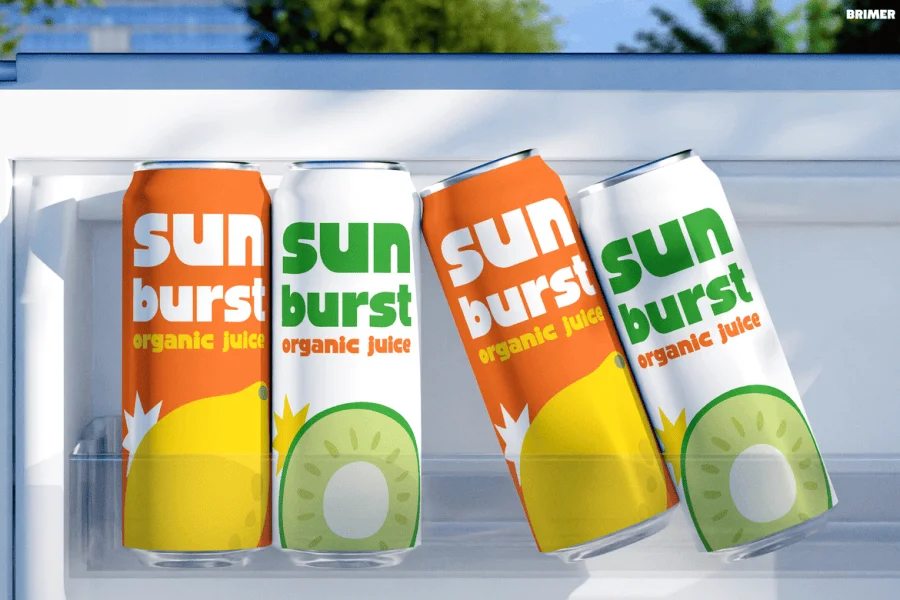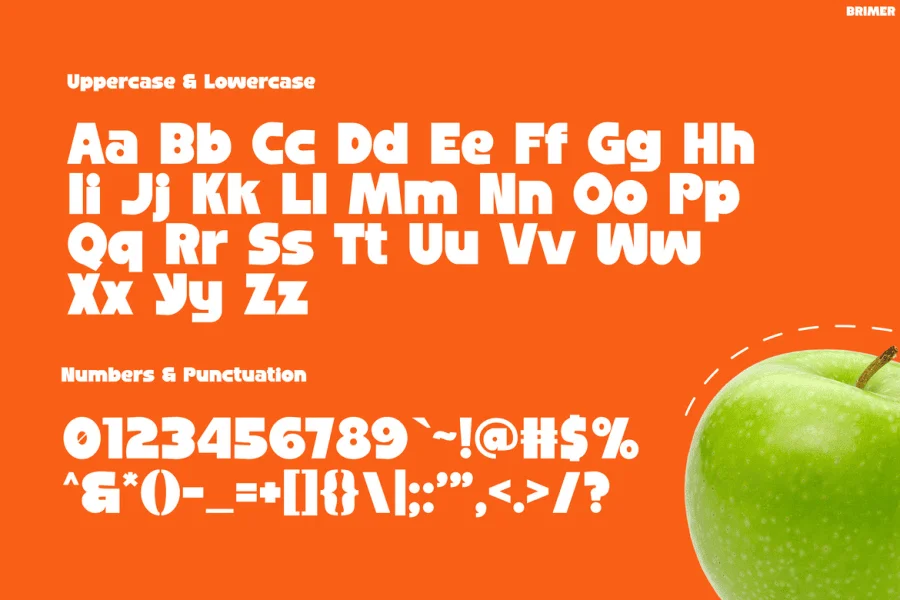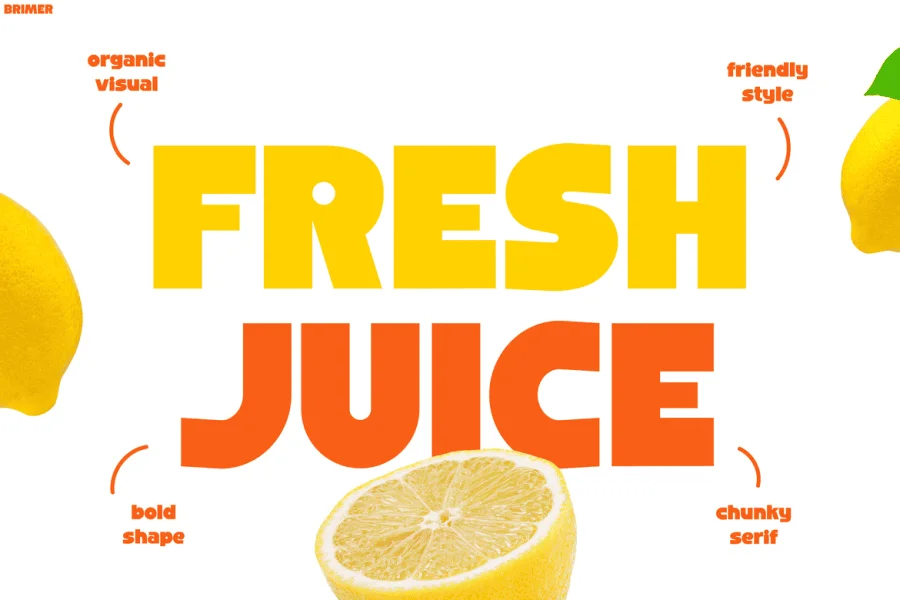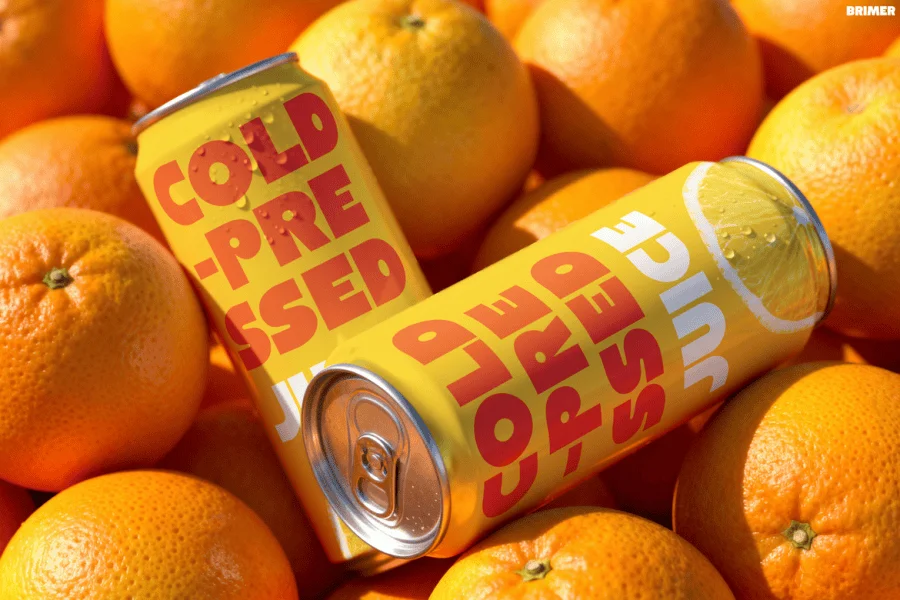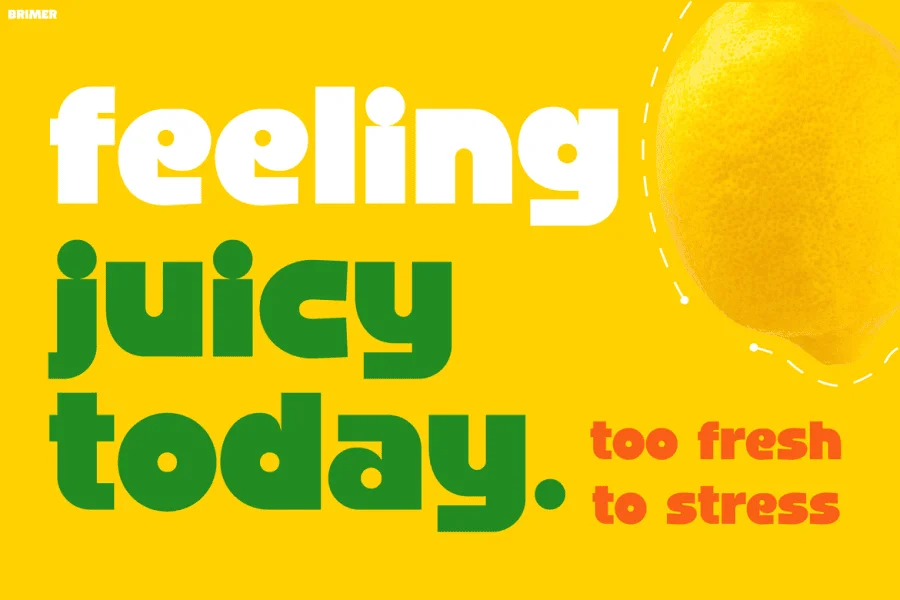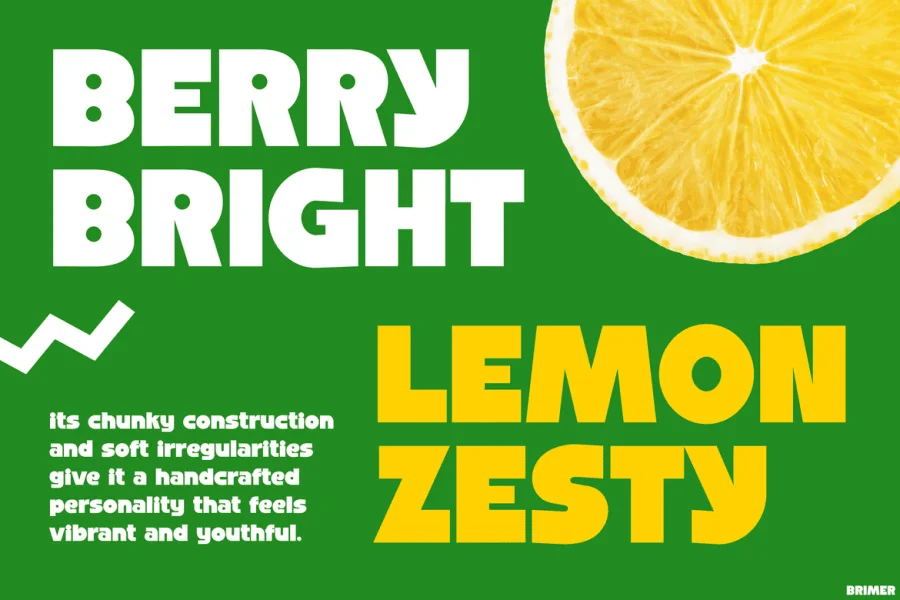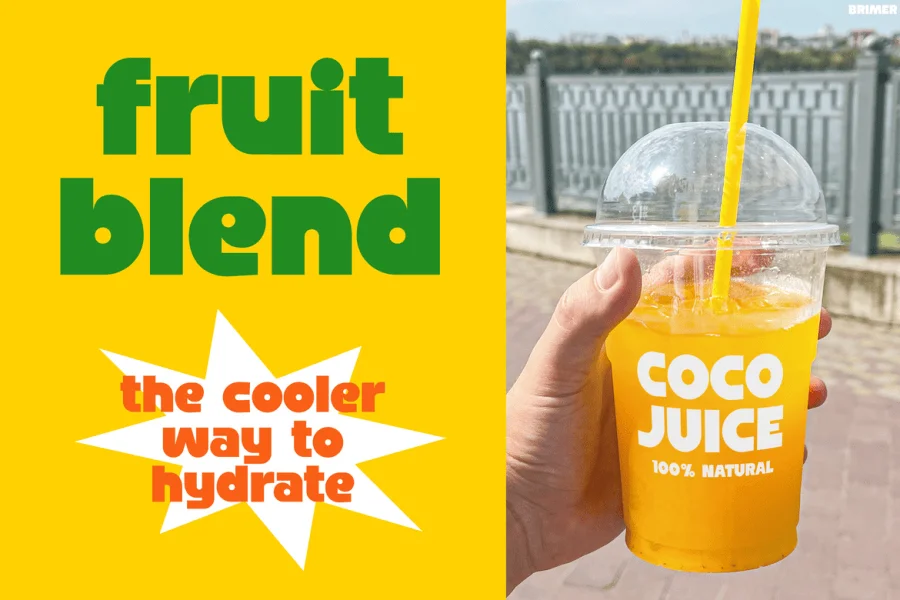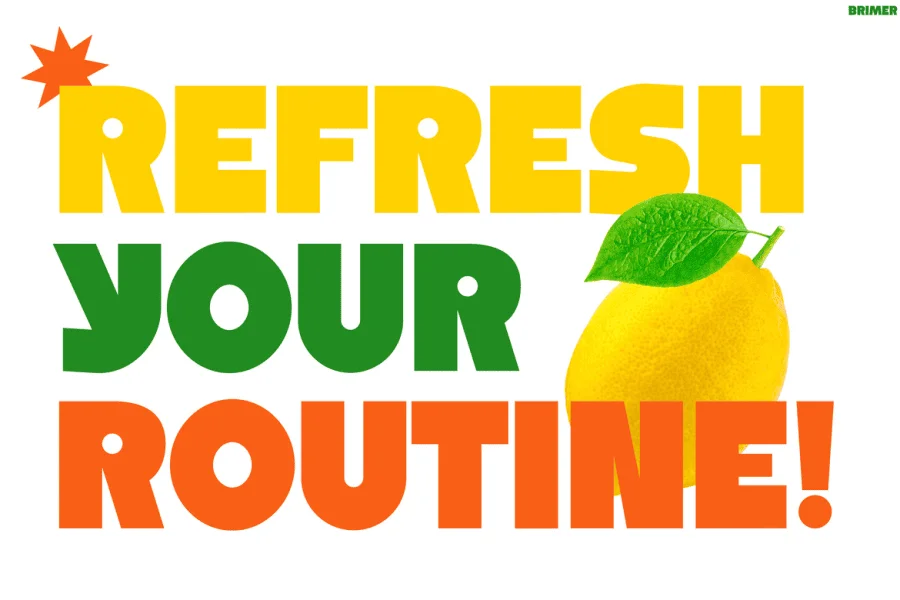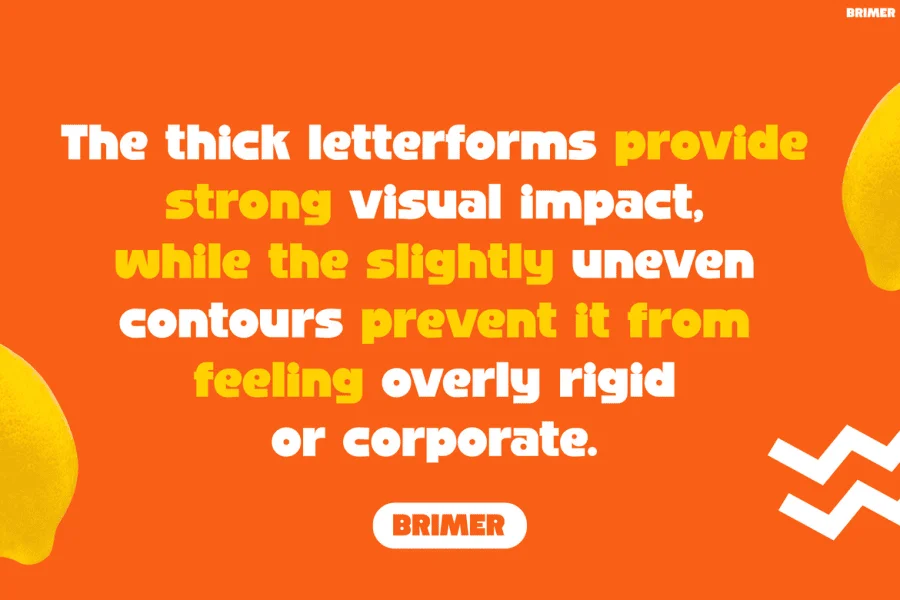
Brimer is a chunky, heavy-weight display typeface that blends a bold, hand-cut aesthetic with playful geometric structures. Characterized by its blocky letterforms and soft irregularities, the design features thick, solid strokes and distinctive, deep inktraps that carve into the joints of the letters. This structural tension gives the typeface a handcrafted, organic rhythm, while its blunt, planar terminals and compact counters add a touch of modern, graphic edge to its overall friendly and approachable posture.
With its vibrant, youthful energy, this typeface is exceptionally well-suited for attention-grabbing posters, billboards, and eye-catching food and beverage packaging. Its thick, expressive forms ensure maximum impact in large-scale display settings, making it an excellent choice for juice labels, bold brand identities, and playful advertising campaigns that require a warm, human touch.